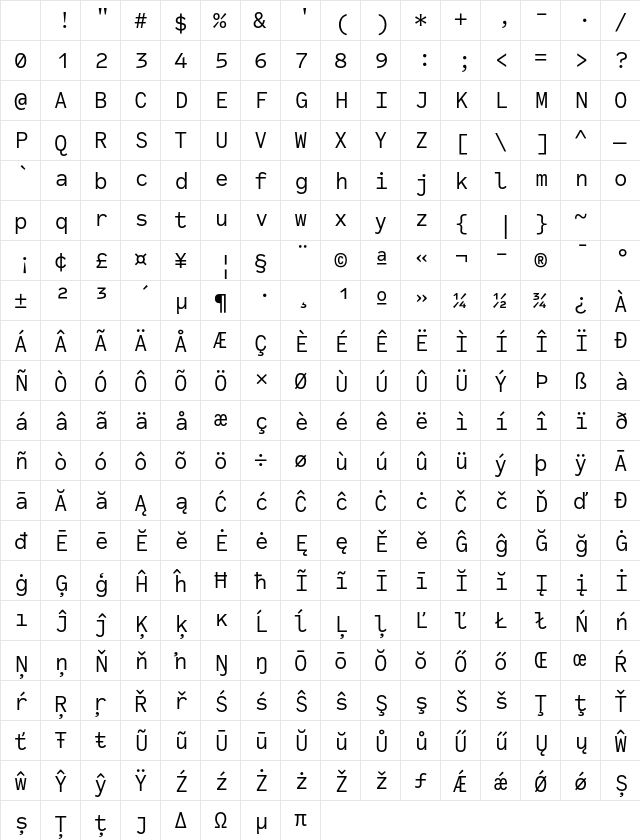
Code Saver uses fixed-width spacing throughout, giving it the structured, systematic character associated with coding environments and technical documentation.
Pro Tip: Use Code Saver with slightly increased line-height for extended reading - fixed-width spacing can feel dense in longer passages without extra breathing room.